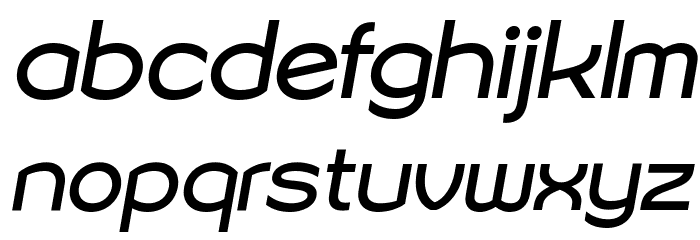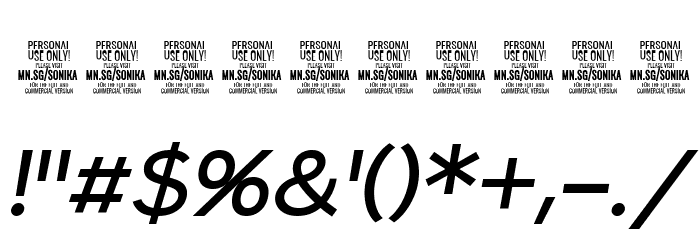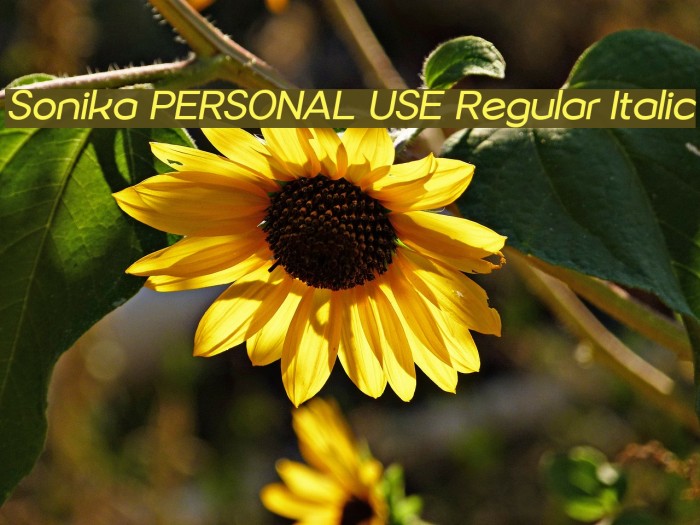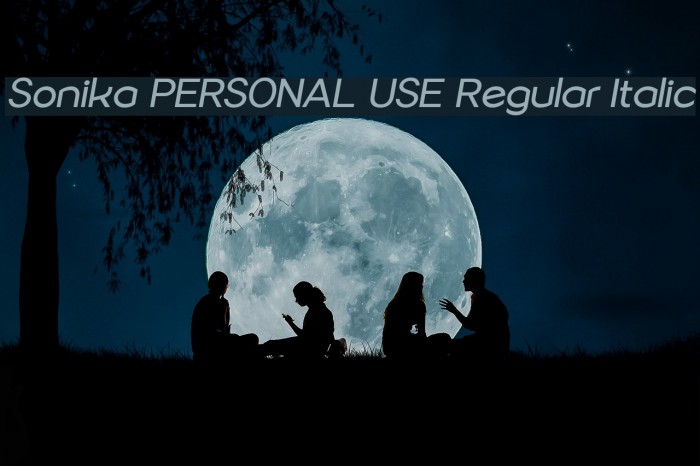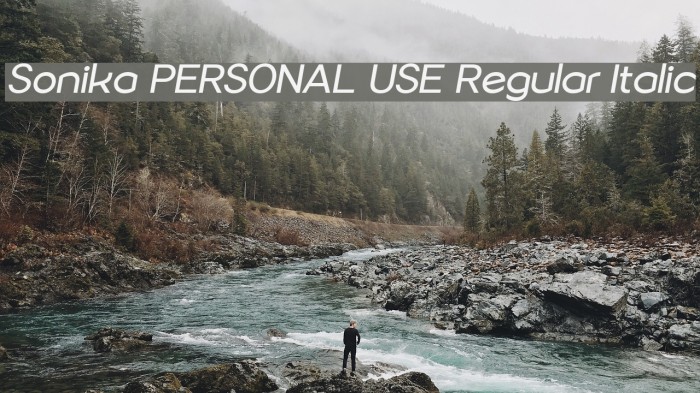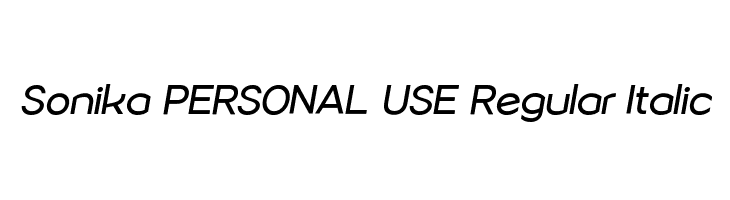
Sonika PERSONAL USE Regular Italic Font
This font features a sleek, italicized style with a modern and dynamic appearance. The characters are slightly slanted, giving a sense of motion and elegance. The uppercase and lowercase letters are well-proportioned, maintaining a consistent flow throughout. The numbers and special characters complement the alphabet with a uniform design. The overall look is clean and professional, making it suitable for various design applications.
A modern, italicized font with a sleek and dynamic style.
- Proposed Projects: Ideal for branding, advertising, and editorial design projects where a modern and stylish look is desired.
- Use Case: Headlines, Logos, Branding